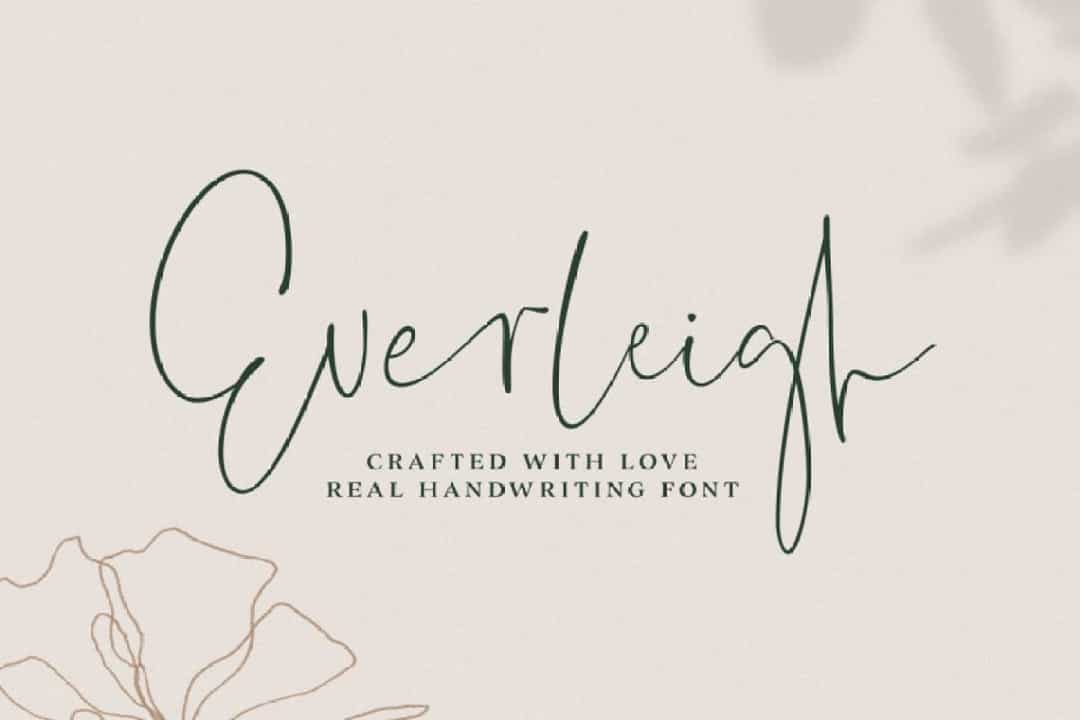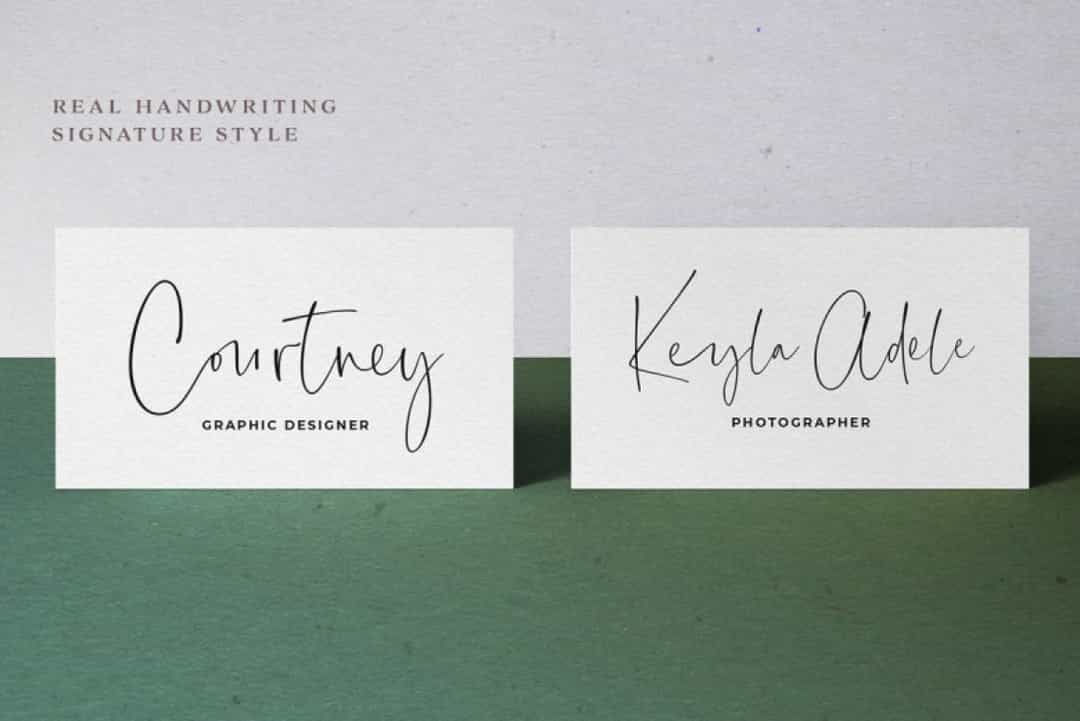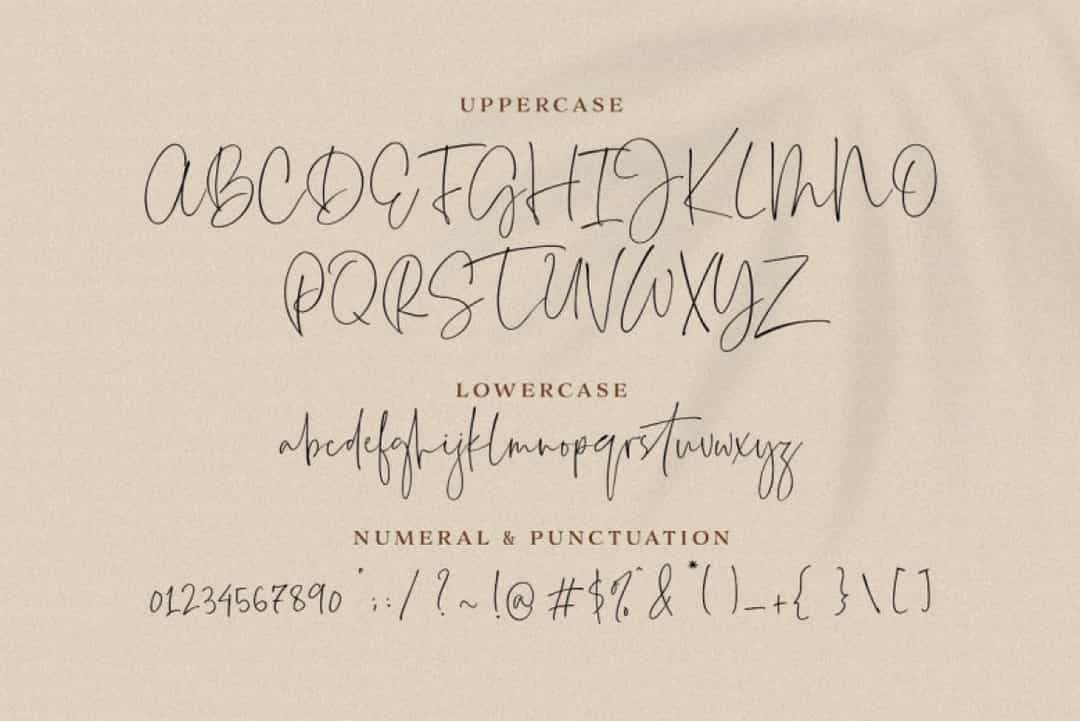
Everleigh is a handwritten font that has a certain uniqueness to it with its design and dynamic characters. Everleigh comes with other font options (Open the Type option) which will enable the font to fit in different designs such as promotional, social media, logo and even business cards posters and flyers; the font is even ideal for the design of creative flyers!